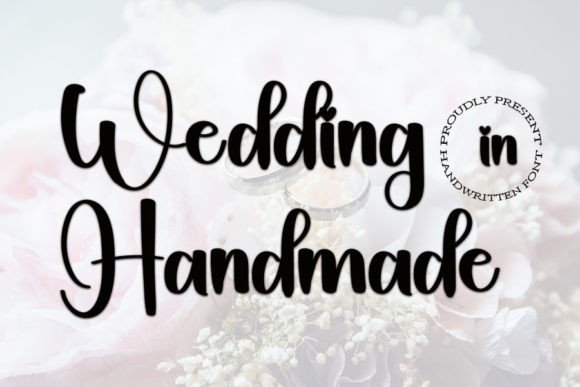
Introducing Wedding in Handmade Font, a beautiful and elegant script font that will make your designs shine. This font is perfect for creating stunning wedding invitations, love letters, romantic poems, and so much more. With its flowing lines and elegant curves, Wedding in Handmade Font is sure to add a touch of romance to any project.
This font is also incredibly versatile, making it perfect for a variety of design projects. Use it to create eye-catching logos, stylish social media posts, or unique branding materials. The possibilities are endless.
But what really sets Wedding in Handmade Font apart is its emotional appeal. This font is designed to evoke feelings of love, joy, and happiness. It's the perfect choice for any project that you want to infuse with a touch of romance.
* It's perfect for creating romantic and elegant designs.
* It's incredibly versatile and can be used for a variety of projects.